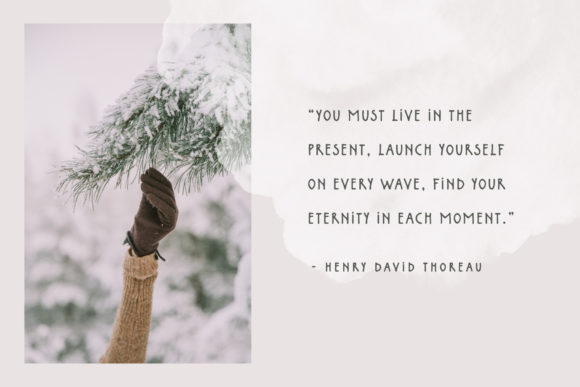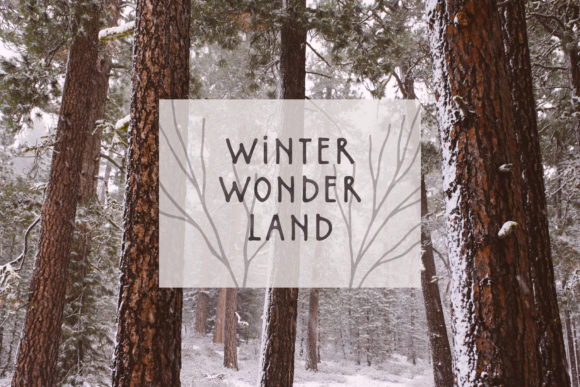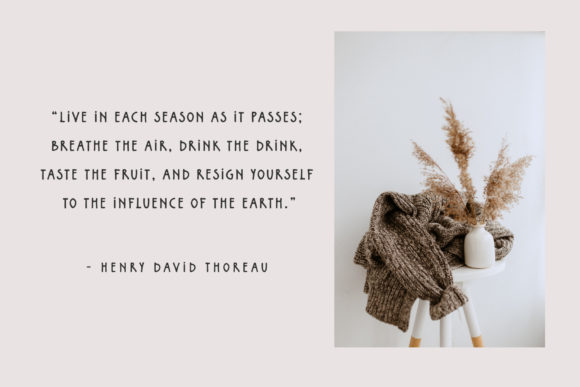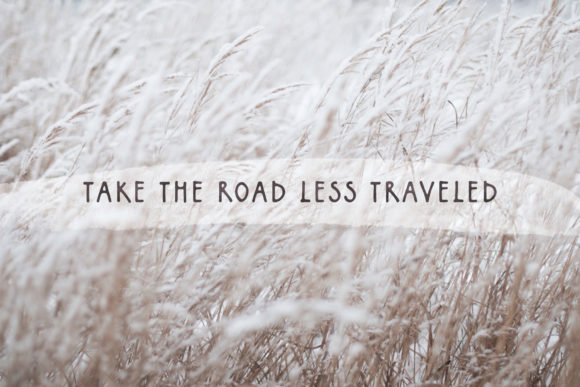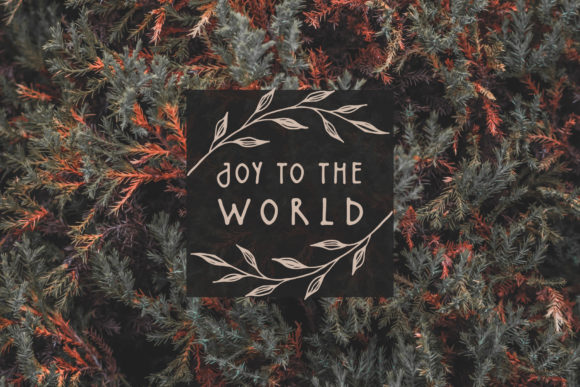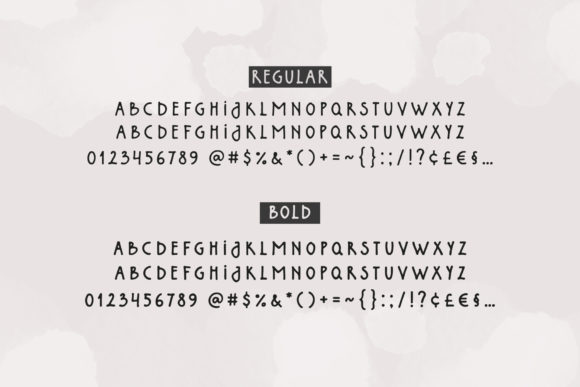
Introduction to Northlands Font
As I sat down to work on my latest creative project, I knew exactly what I needed to give it that extra special touch – a font that was both timeless and trendy. I stumbled upon the Northlands Font, and I was immediately captivated by its simple yet elegant design. The clean lines and minimalistic aesthetic had me hooked, and I couldn’t wait to see how it would elevate my design.
What I love about Northlands Font is its versatility. Whether you’re working on a logo, title, or quote, this font is the perfect design resource. Its two weights offer a range of options, allowing you to tailor your design to suit your needs. And, with its transparent background, you can easily integrate it into your creative project without any distractions.
As a designer, having access to high-quality fonts like Northlands Font can be a game-changer. It’s a valuable addition to any design library, and I’m excited to share its features and benefits with you in this article.
Key Features of Northlands Font
- Unique, hand-drawn design with a mix of modern and vintage elements, perfect for creative projects.
- Perfect for designers, artists, and writers looking for a unique and eye-catching font to elevate their creative project.
Honest Review: Northlands Font
I recently came across the Northlands Font and I must say, it’s a gem in the design world. As a designer, I’m always on the lookout for high-quality design resources that can elevate my creative projects. The Northlands Font is a great addition to my collection.
- High-quality typography: The font is crisp and clear, making it perfect for any project that requires a touch of elegance.
- Limited character set: The font only includes a limited character set, which can be a problem for designers who need to create complex text.
- No bold or italic options: While the font is beautiful, it’s not versatile enough for designers who need to create emphasis or create a mood.
Overall impression:
I would highly recommend the Northlands Font for designers who want a simple, elegant font for their creative projects. While it has its limitations, it’s a great resource for designers who want to add a touch of sophistication to their designs.
Tips for Getting the Most Out of Northlands Font
Use the Northlands Font in conjunction with other high-quality design resources to create visually stunning designs. Experiment with different font sizes, colors, and combinations to achieve the desired effect.
The Northlands Font is ideal for designing logos, icons, graphics, presentations, reports, and documents. Its high quality and transparent background make it perfect for creating visually appealing designs that stand out from the crowd.